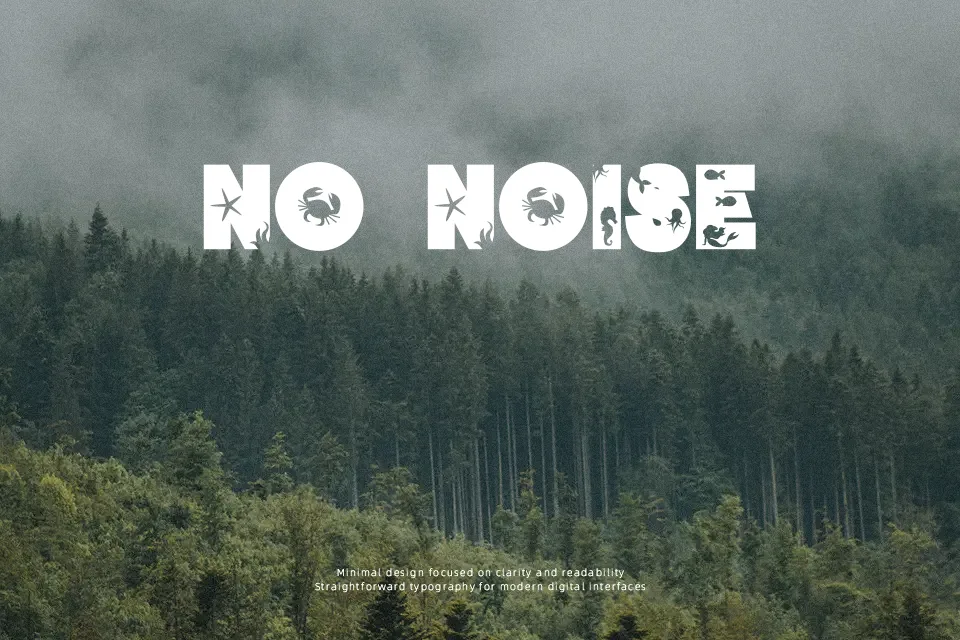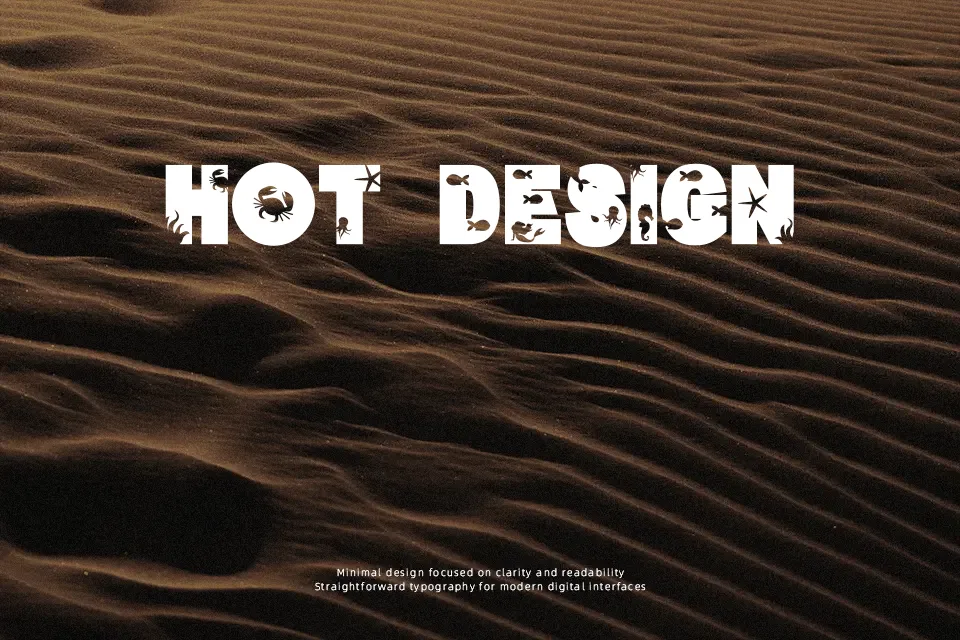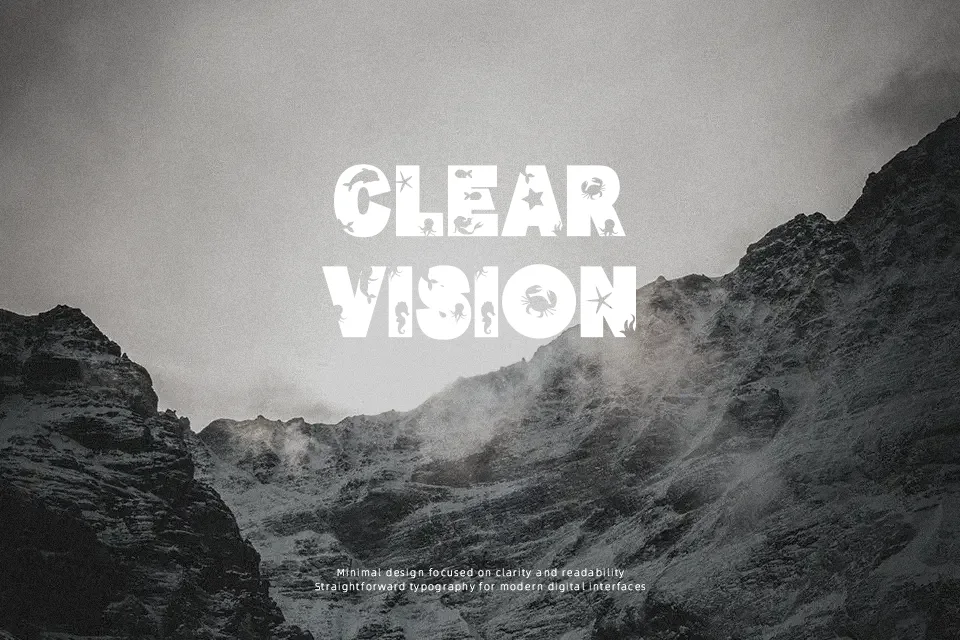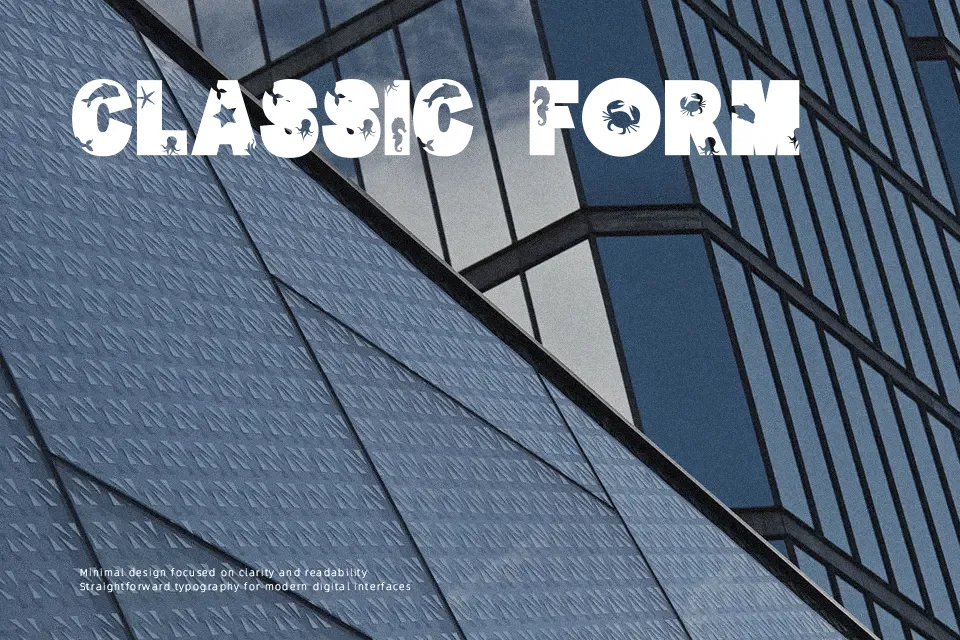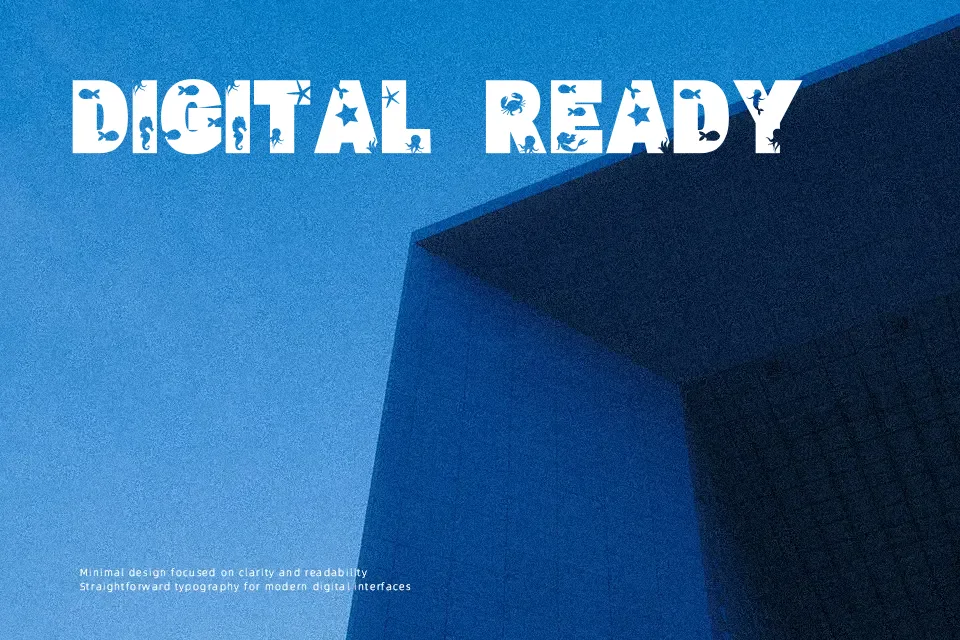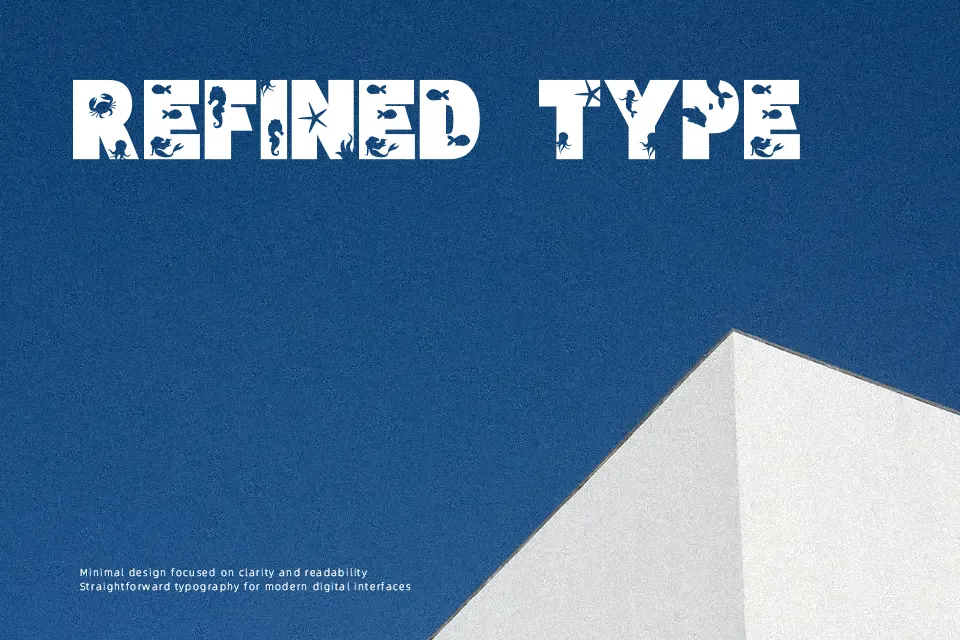
Chozy Mermaid Font
Designed by Pidco Art
Chozy Mermaid Font features animated display letterforms characterized by rounded contours, bold stroke weights, and thematic decorative terminals. The design maintains generous character width and balanced spacing, allowing individual glyphs to stand out distinctly across larger compositions. While the playful shapes provide strong visual impact for children’s book titles, event flyers, and themed packaging, the intricate details become less effective at smaller sizes. The heavy stroke styling significantly reduces comfort when reading continuous body paragraphs or dense text blocks. For high-visibility headline layouts and creative party stationery, the typeface delivers distinctive character while preserving clear letter recognition.
– children’s book cover titles
– themed birthday party invitations
– toy and summer product packaging
– animated poster headlines
– long editorial body text
– technical and legal documentation
– small mobile interface labels
– spreadsheet and tabular data